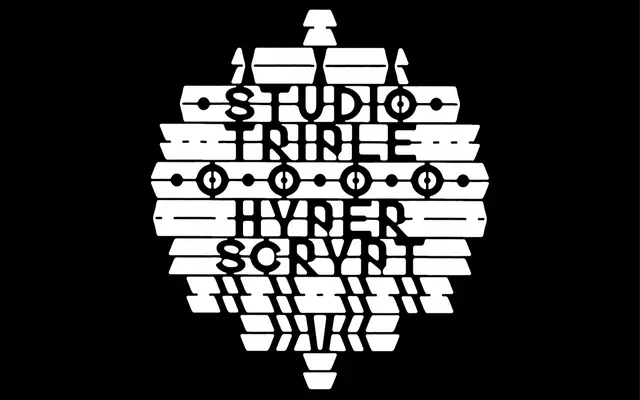
Hyper Scrypt
Studio Triple · 2017
A reversed stencil display typeface from 2017, drawn from stained glass aesthetics and designed with pattern-making in mind.
Built around an inverted stencil structure, the letterforms take their visual logic from stained glass construction, where the negative space becomes the defining element. It was designed with repeat pattern use in mind, suggesting a primary use in surface design, editorial decoration and display contexts rather than continuous text. Released as open-source and originally developed as a custom project by Studio Triple.
Described as a revert stencil typeface inspired by stained glass; the reversed stencil construction and pattern-making focus place it firmly in the display category.